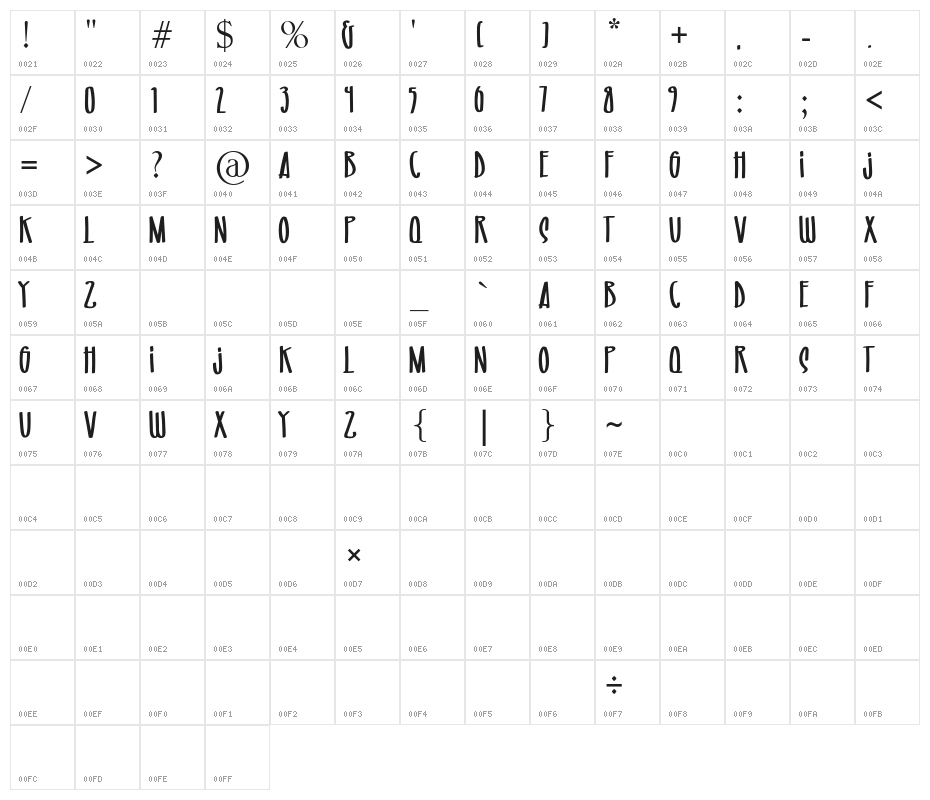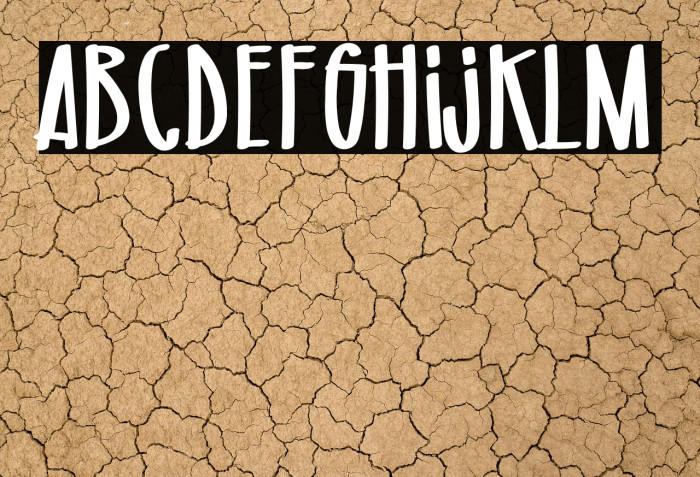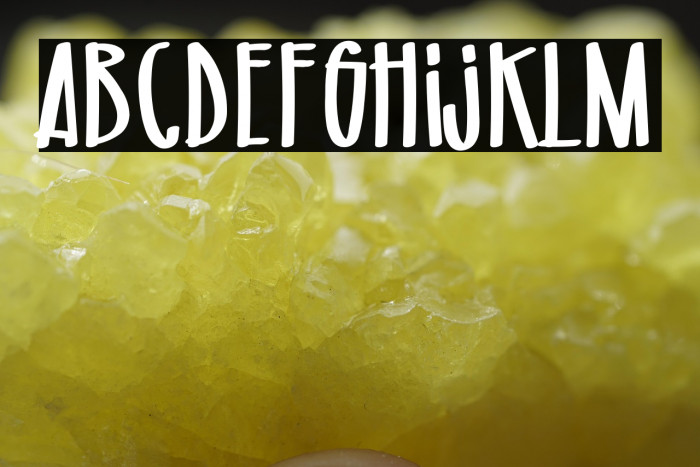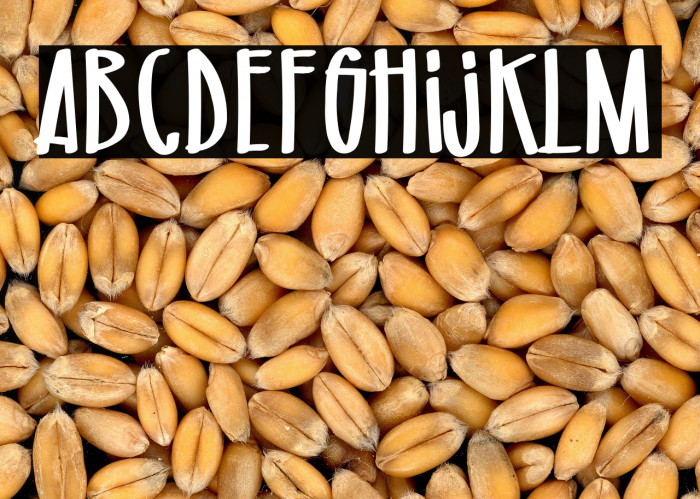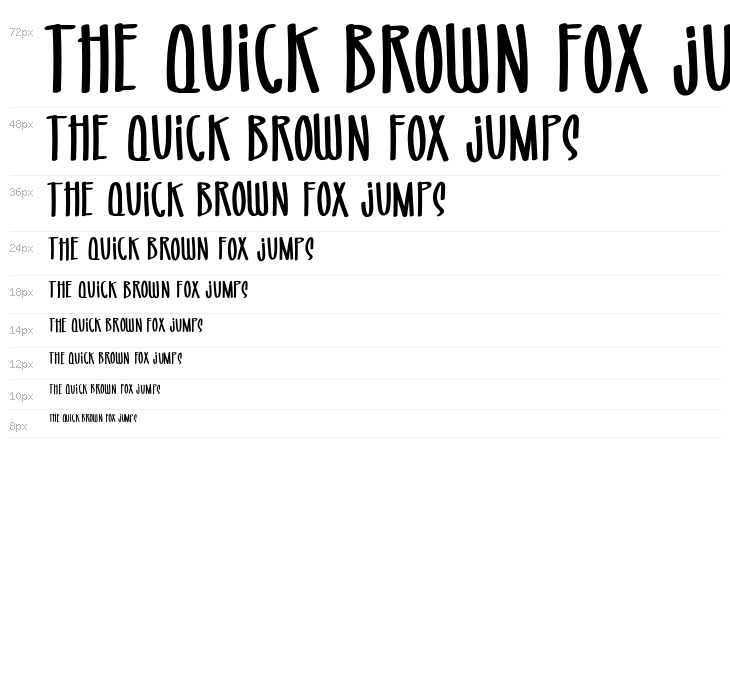
RIO & MA Font
RIO & MA Description
This font features a playful and bold handwritten style, characterized by its tall and narrow letterforms. The strokes are consistent in width, giving it a uniform appearance. The uppercase and lowercase letters maintain a cohesive look, with slight variations that add to its charm. The numbers and special characters are designed to match the overall aesthetic, making it versatile for various uses. Its informal and friendly vibe makes it suitable for creative projects that require a personal touch.
| Proposed Projects | Ideal for greeting cards, children's books, posters, and branding projects that require a whimsical and approachable feel. |